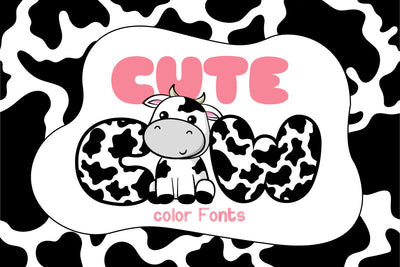
Cute Cow Color Fonts
Cute Cow is a cute and fun color font designed in two styles. It is a unique font that has a color and pattern in the font itself. And the other is a font that you can change the font color as you like. Fall in love with its authentic feel and use it to create gorgeous invitations, beautiful stationary art, eye-catching social media posts, and cute greeting cards. Add this beautiful font to each of your creative ideas, and notice how it makes them stand out.